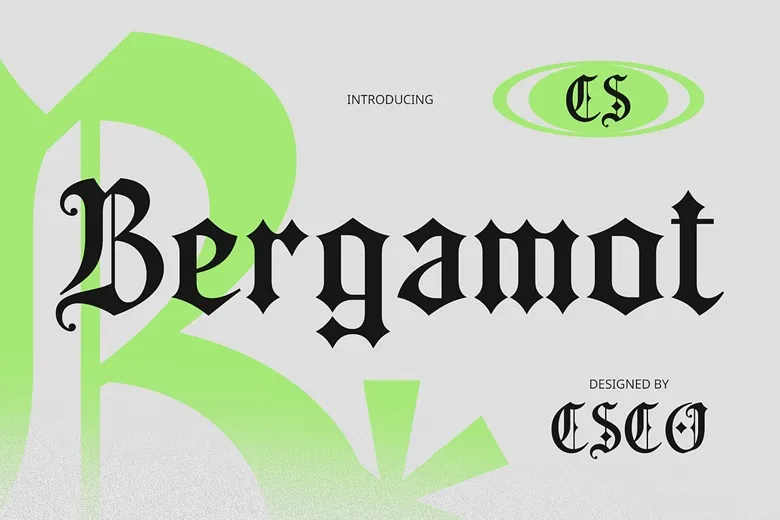
CS Bergamot is an elegant blackletter typeface, which font suggestions are influenced by medieval European documents and charts. Its contrasting fonts consist of abundant bluntness, pure geometric form, vast strokes, and romance, which create a dramatic atmosphere of history. As it is provides through a solid fount style, this font is indeed suitable for designs where the company’s message needs to assert domination.